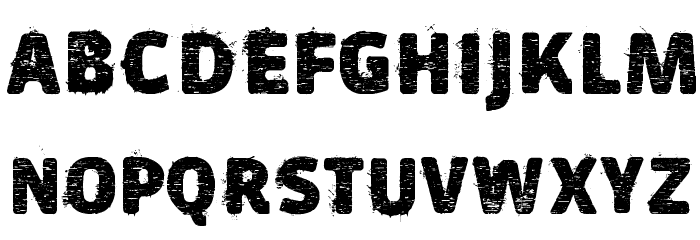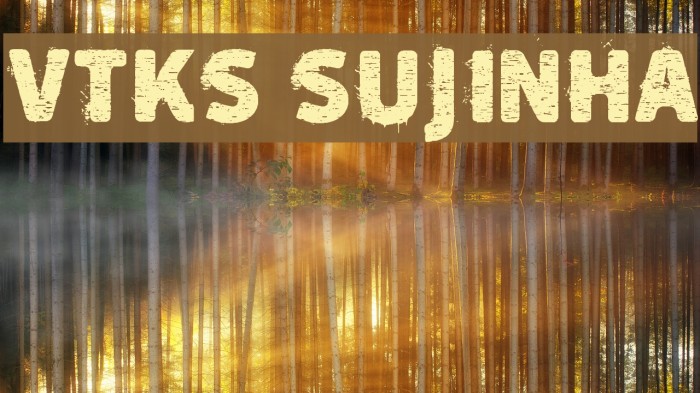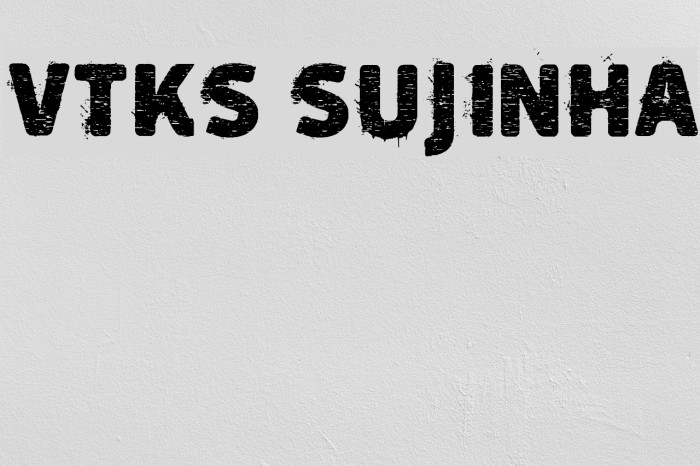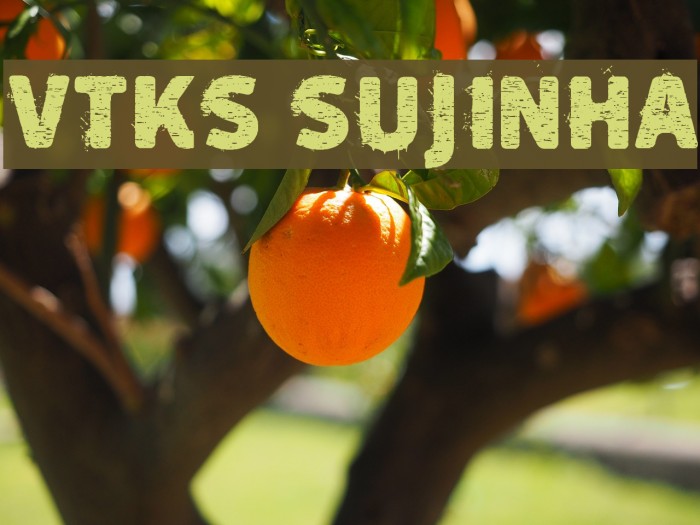
vtks sujinha Font
This font features a bold, distressed style with a rough texture that gives it a grunge or urban appearance. The characters are uppercase and have a slightly irregular outline, adding to the rugged and worn effect. The texture within each letter varies, creating a dynamic and eye-catching look. This font is ideal for designs that require a strong, impactful presence, such as posters, album covers, or any project aiming for an edgy aesthetic. The overall design is consistent across all characters, maintaining the distressed theme throughout.
A bold, distressed font with a grunge texture and rugged appearance.
- Proposed Projects: Posters, album covers, urban-themed designs, edgy branding materials.
- Overall Style: Grunge, Urban, Edgy